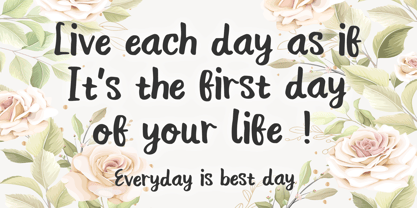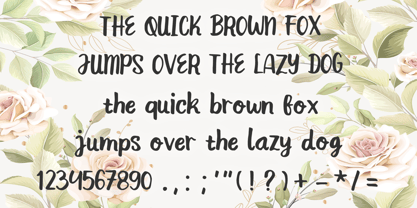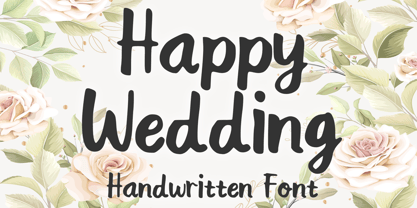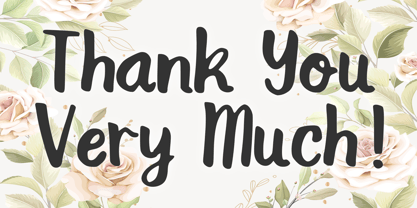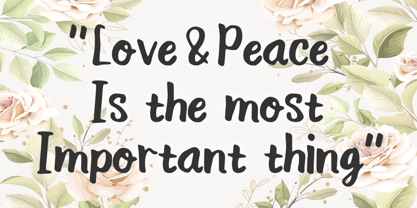
Happy Wedding
by Mvmet
The Happy Wedding Font Family was designed by Gabriel Valentinus and published by Mvmet. Happy Wedding contains 1 styles. More about this family
Happy Wedding is an exquisite display font that seamlessly combines personality with elegance. This font is an optimal choice for creating beautifully striking headlines and captivating designs. Its versatility breathes life into vintage graphics while also complementing clean-cut and classy logos, wedding invitations, and editorial works. The romantic essence and vivid aesthetic of Happy Wedding elevate your design projects to unmatched heights of refinement. Its radiant appeal makes it a delight for any design enthusiast, perfect for branding, invitations, and various creative applications.
Designers: Gabriel Valentinus
Foundry: Mvmet